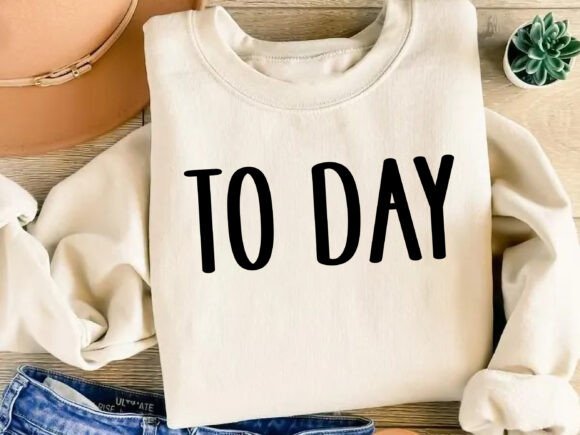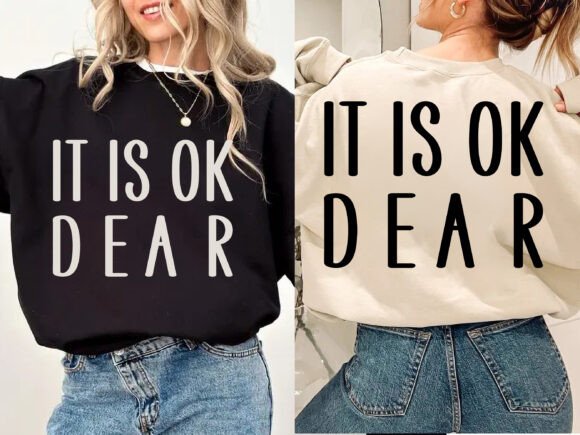
Introduction to Farmhouse Alphabet Font
Have you ever stumbled upon a charming farmhouse sign that makes you want to grab your camera and capture the moment? For designers, that moment often comes when they find the perfect font to elevate their creative project. One such treasure is the Farmhouse Alphabet Font, a stunning display font that exudes rustic charm and warmth.
With its tall, narrow letters, this font is perfect for creating eye-catching signs, posters, and home decor items that add a touch of country elegance to any space. Whether you’re working on a design project or simply looking for a free download to enhance your personal decor, the Farmhouse Alphabet Font is a valuable resource that’s sure to impress. Its high-quality design and transparent background make it easy to integrate into any project, from wedding invitations to rustic-themed merchandise.
Key Features of Farmhouse Alphabet Font
- High-quality, hand-drawn design with a vintage, rustic feel perfect for creative projects.
- Includes a comprehensive set of uppercase and lowercase letters, numbers, and punctuation marks for a complete alphabet.
- Unique, hand-crafted design elements and ornaments available for added embellishments and customization.
Honest Review: Farmhouse Alphabet Font
I recently had the chance to work with the Farmhouse Alphabet Font, and I must say, it’s a lovely addition to any design project. This free download is perfect for those looking to add a touch of rustic charm to their creative project.
- What works well: ✨ The font is available in both uppercase and lowercase letters, making it perfect for titles, headings, and even body text. The high quality of the font ensures that it looks great on a variety of backgrounds, including transparent backgrounds.
- What works well: ✨ The font is highly versatile and can be used in a variety of design contexts, from wedding invitations to home decor labels.
While the Farmhouse Alphabet Font is a great resource, there are a few limitations to be aware of:
- ⚠️ The font is a bit on the heavy side, which may not be suitable for all design projects.
- ⚠️ There are only a few font weights available, which may limit the font’s usability in certain contexts.
Overall, I’m impressed with the Farmhouse Alphabet Font. It’s a great design resource for those looking to add a touch of rustic charm to their creative project. While it may have a few limitations, the font is still a valuable addition to any designer’s toolkit.
For best results, use the Farmhouse Alphabet Font in conjunction with other design elements that complement its rustic and vintage feel. Experiment with different colors and combinations to create a unique look that suits your design project.
The Farmhouse Alphabet Font is perfect for a variety of creative projects, including:
- Wedding invitations and decorations
- Home decor and furniture labels
- Food and beverage branding
- Party and event decorations